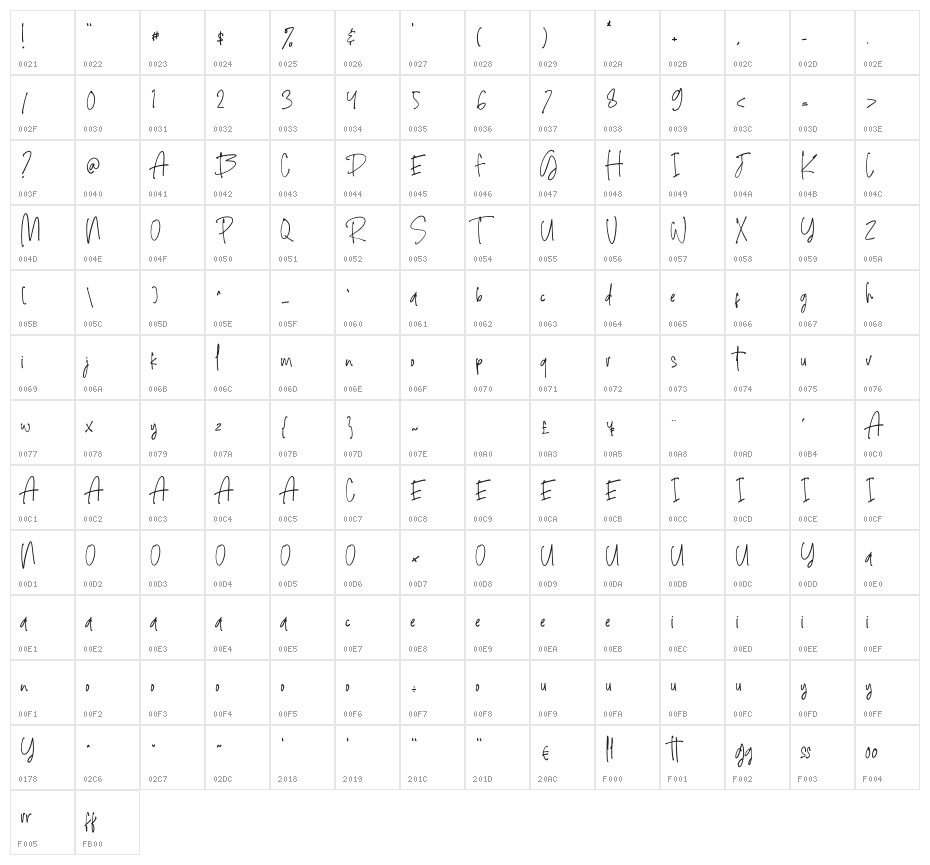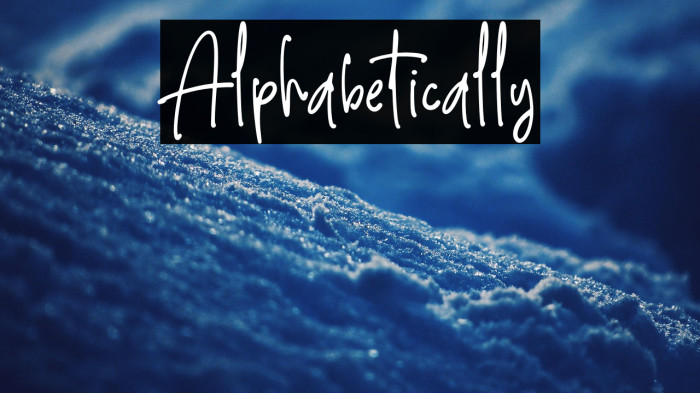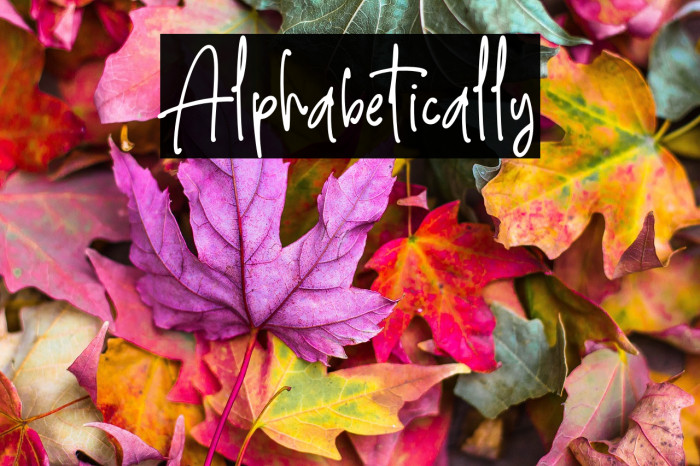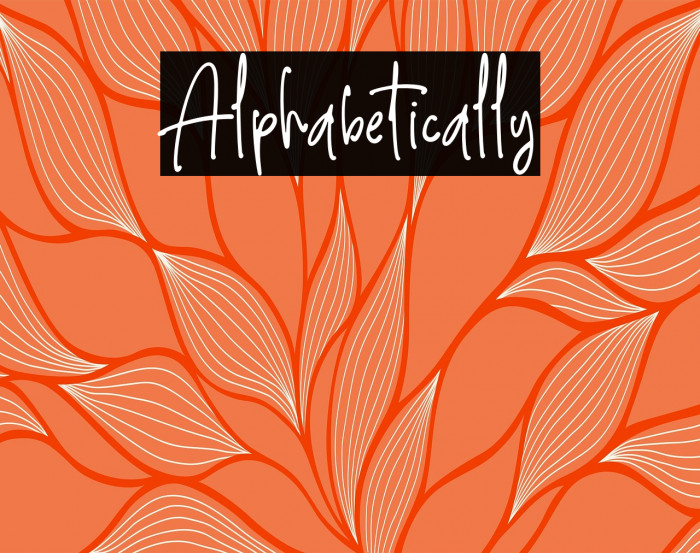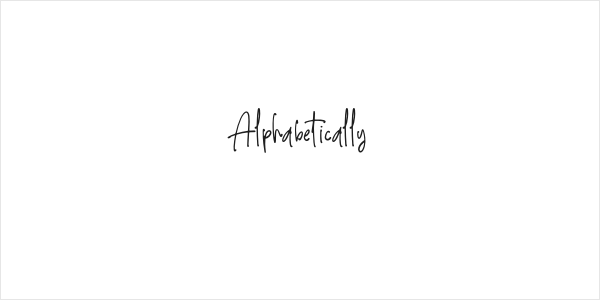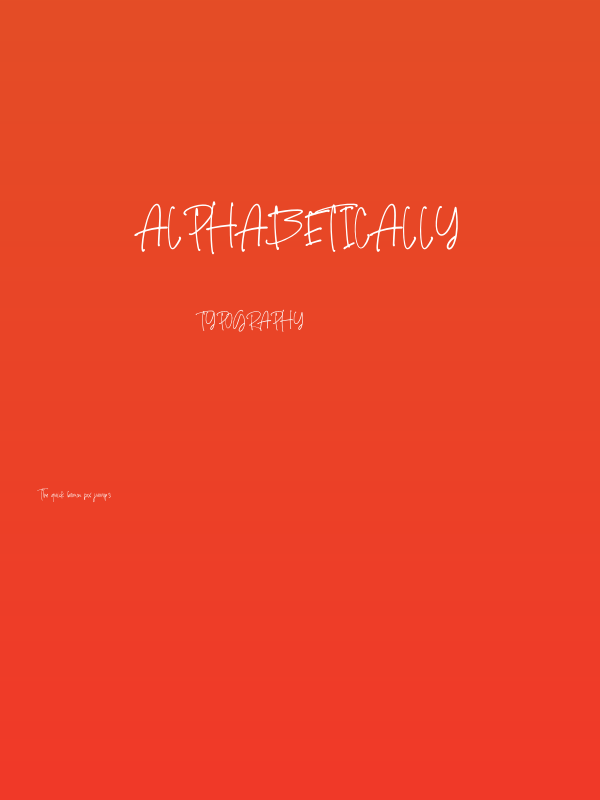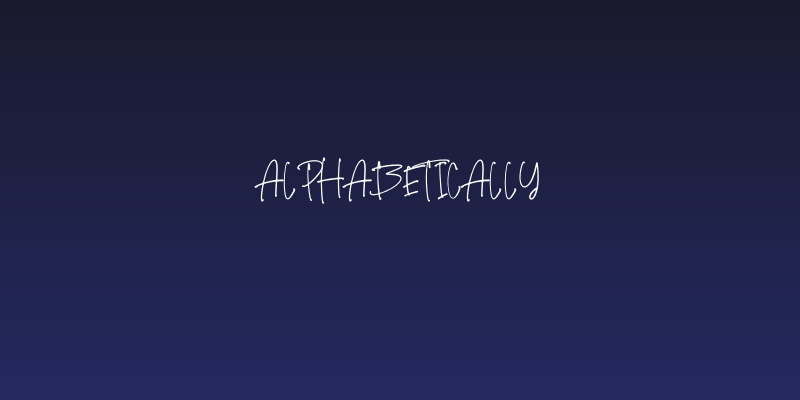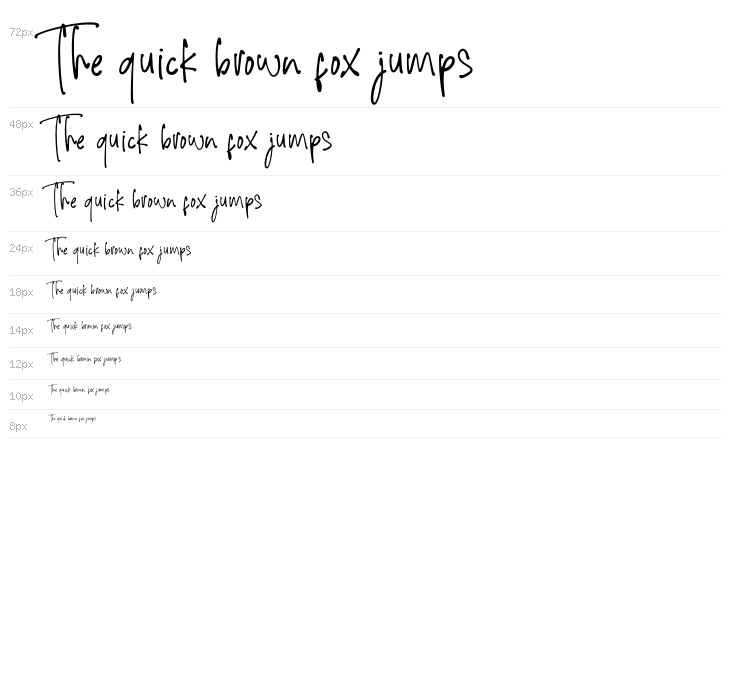
Alphabetically Font
Alphabetically Description
This font exhibits a playful and casual handwritten style, characterized by its loose and flowing strokes. The uppercase letters are tall and slightly irregular, giving an informal and approachable feel. The lowercase letters maintain a consistent style with a slight slant, enhancing the handwritten aesthetic. Numbers and special characters are crafted with the same casual flair, ensuring uniformity across all elements. The overall appearance is dynamic and lively, making it suitable for projects that require a personal touch.
| Use Case | Logos, Headlines, Informal Text |
| Proposed Projects | Ideal for greeting cards, personal branding, social media graphics, and informal invitations. |